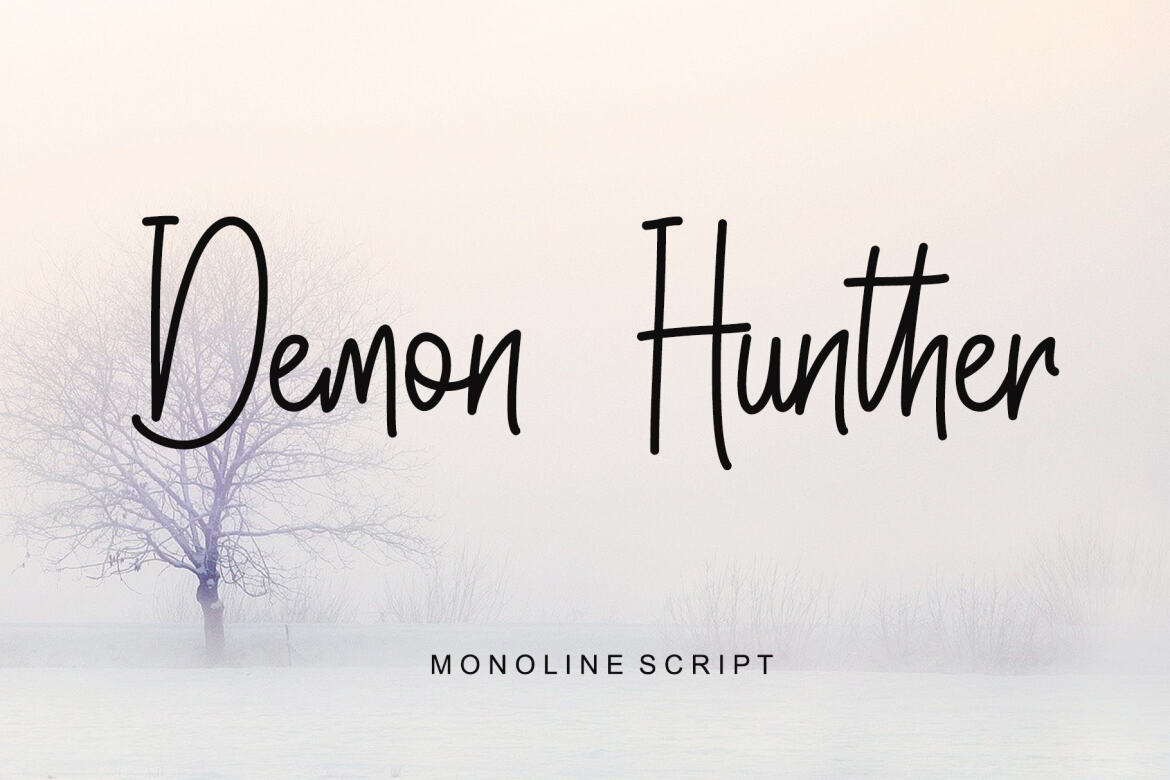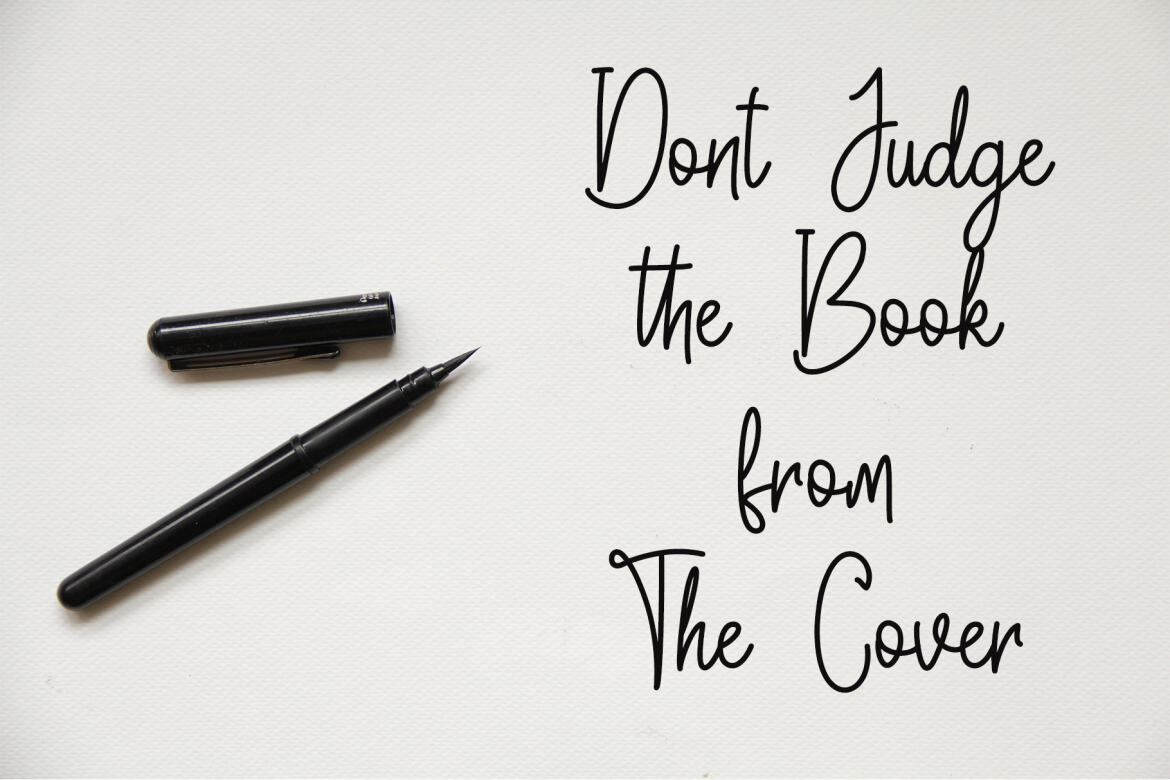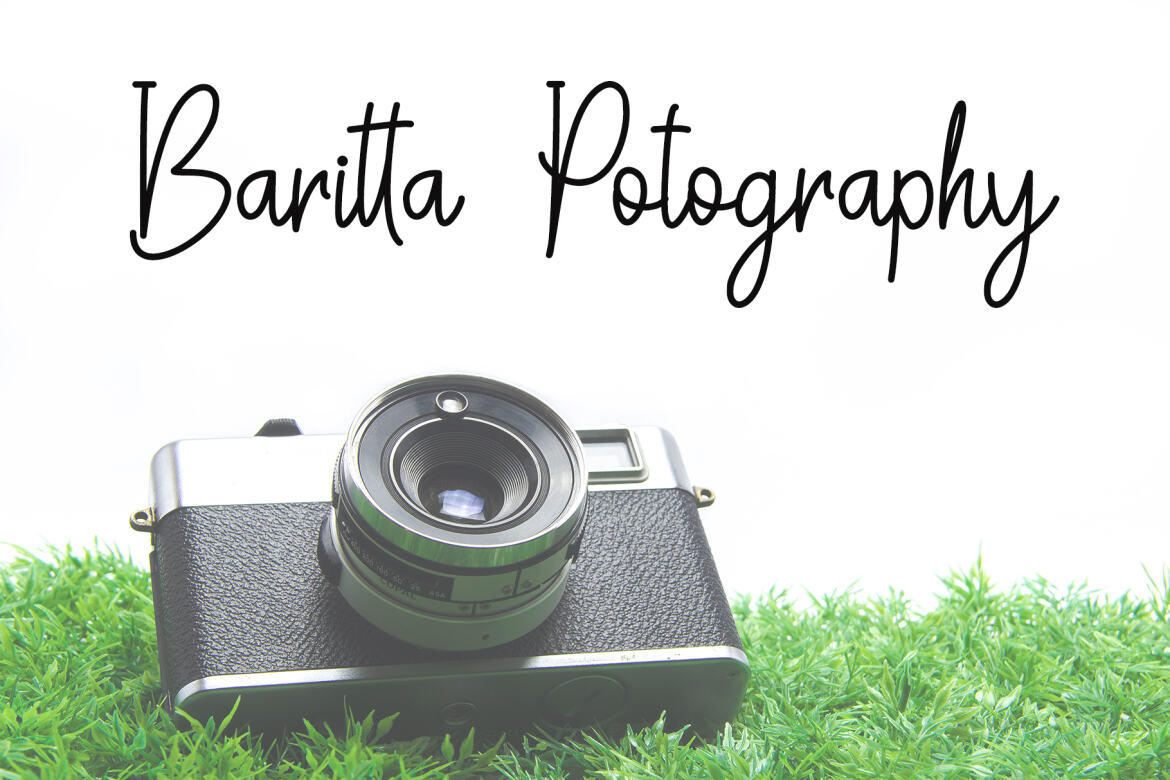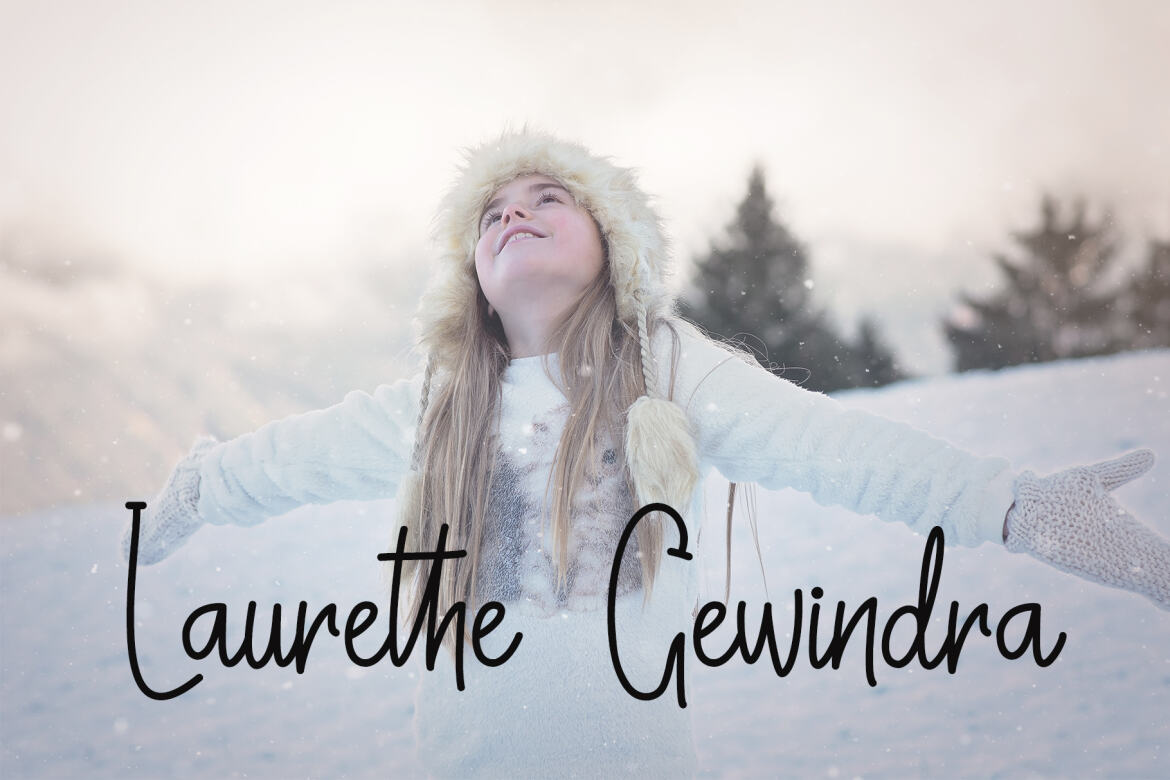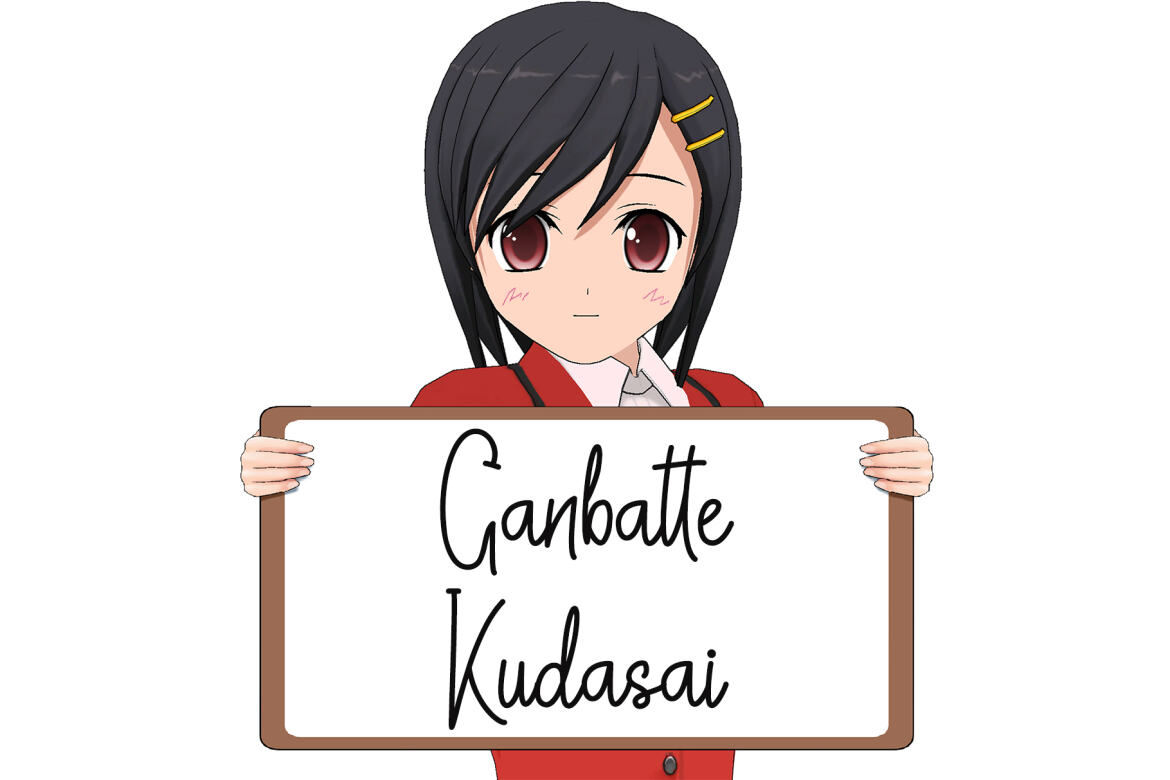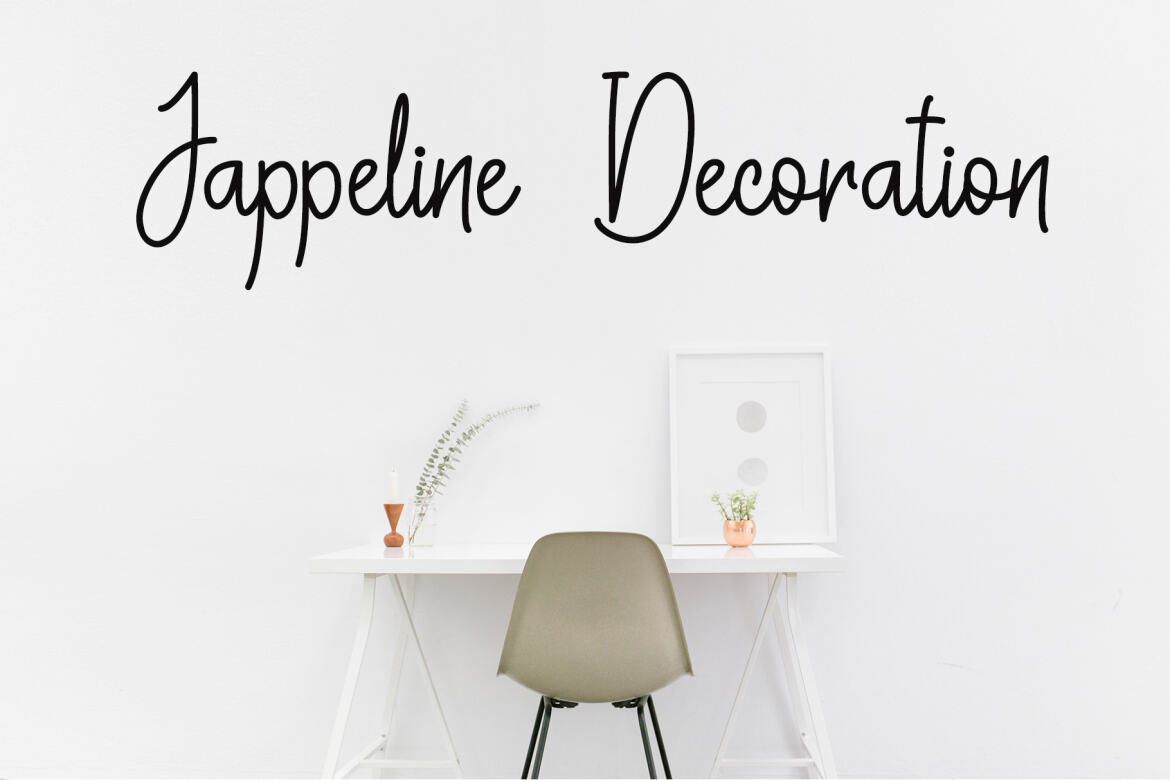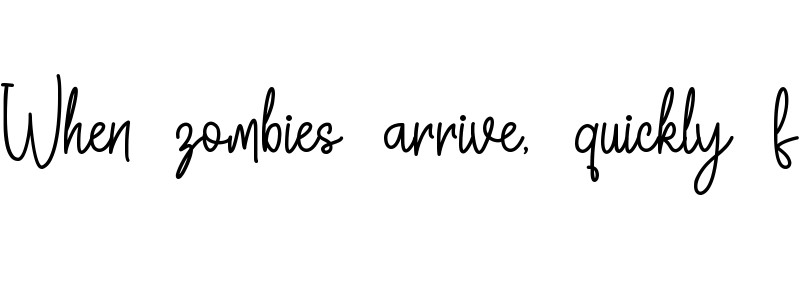
Demon Hunther - Free Font
Demon Hunther
Demon Hunther is an incredibly flowing serif font featuring a sweet and unique calligraphic style. This typeface is perfect for logos, greeting cards, branding, craft designs, book titles, and so much more!